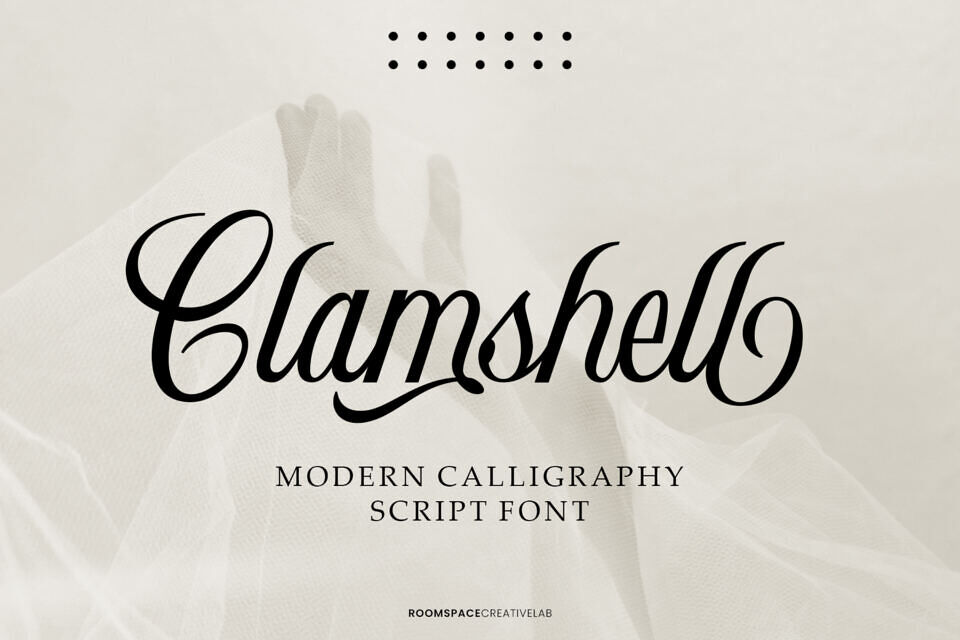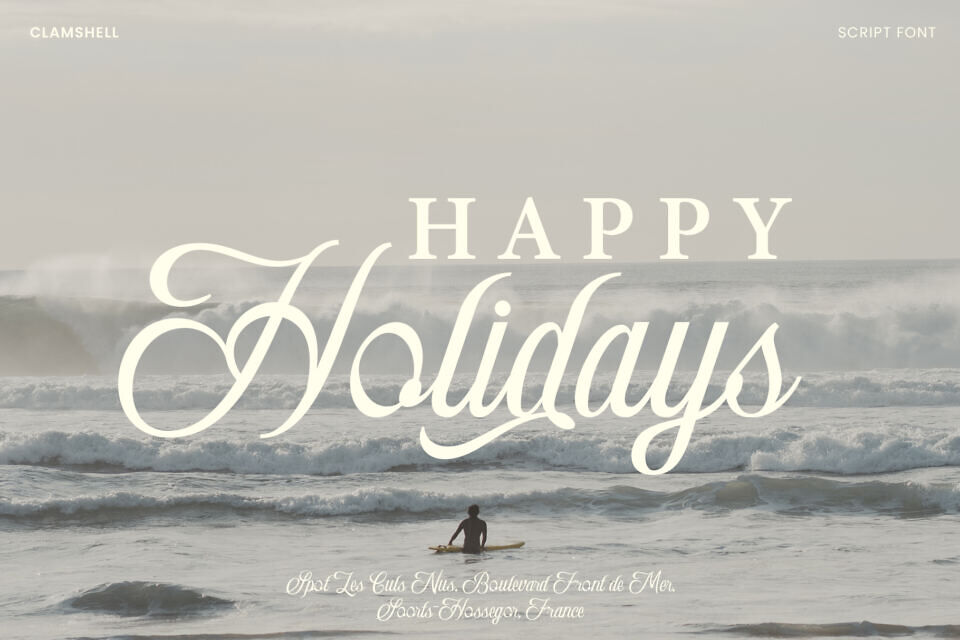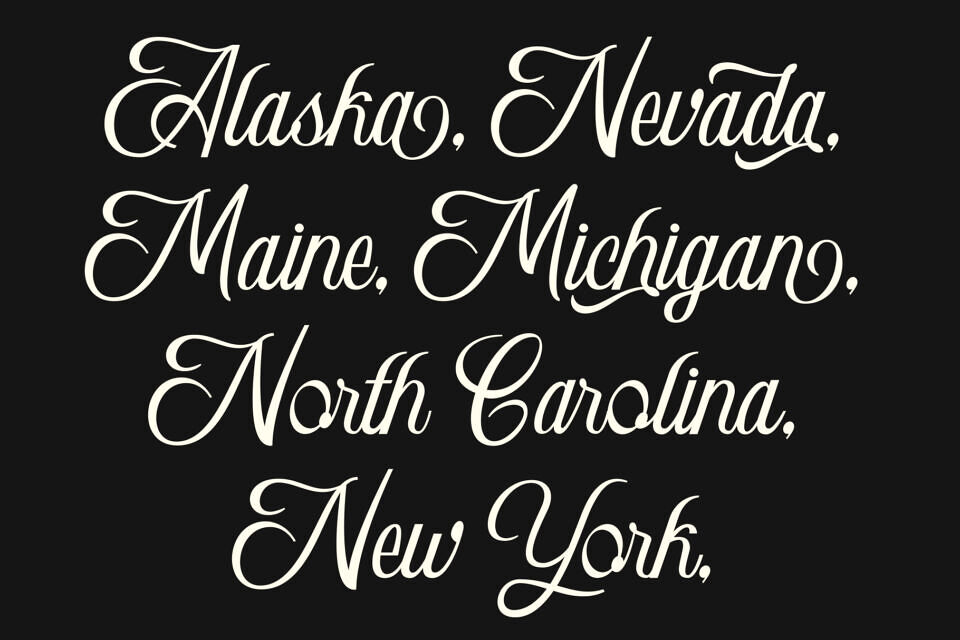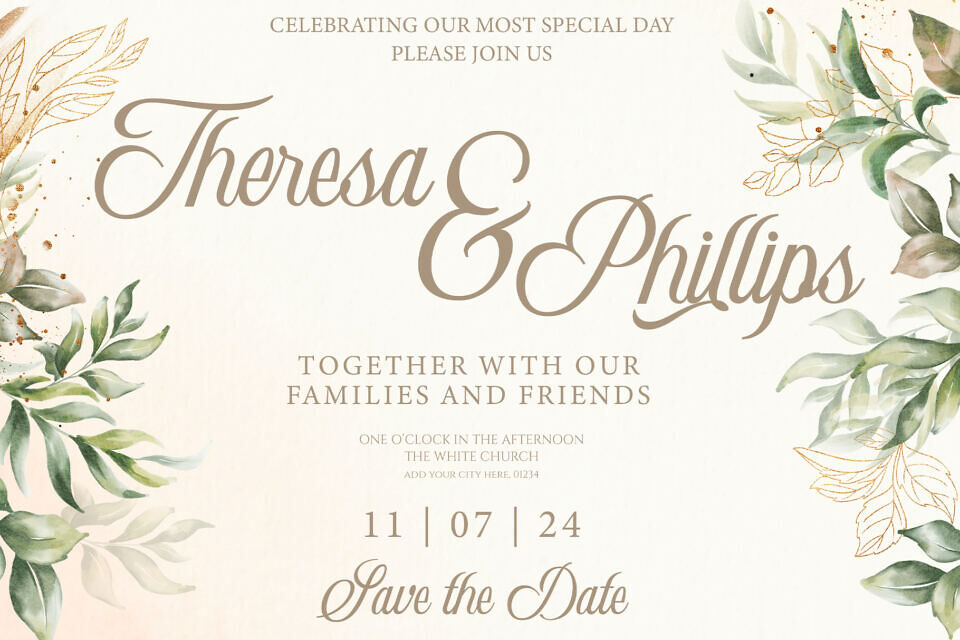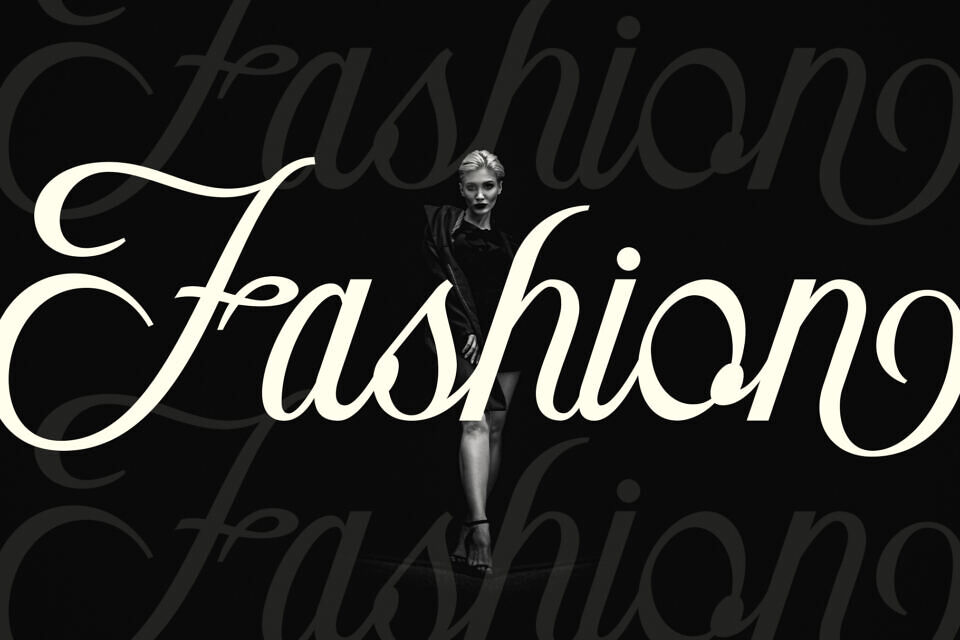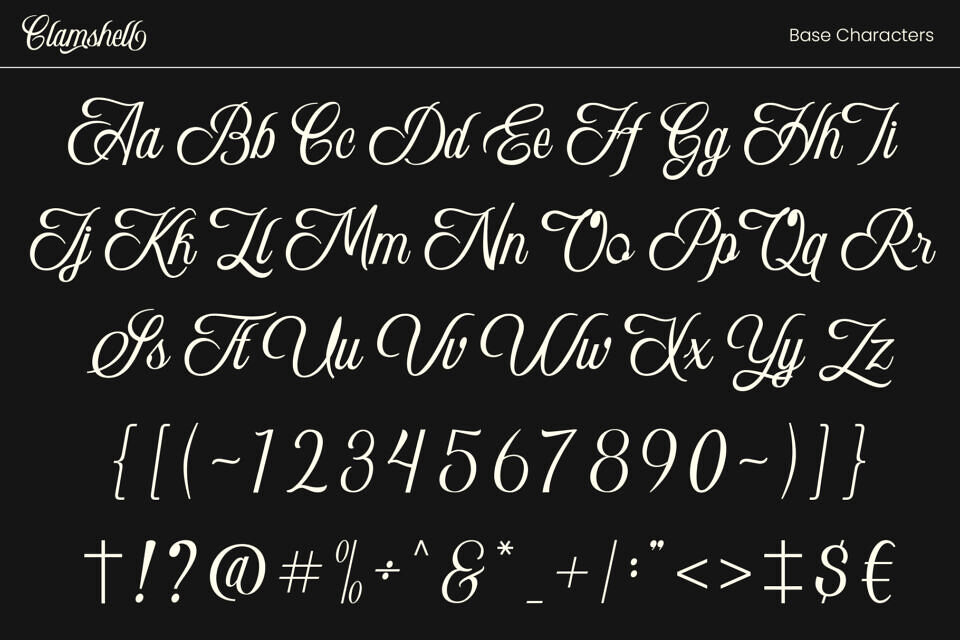
Clamshell Font
Clamshell is a modern calligraphy script font that captures the essence of timeless beauty and sophistication. Its elegant curves and smooth strokes make it the perfect choice for designers seeking a refined, graceful, and stylish typeface. Inspired by handwritten calligraphy, Clamshell delivers a luxurious aesthetic while maintaining a warm, personal touch.
Clamshell is perfect for wedding invitations, branding, packaging, editorial design, and social media, Clamshell adds a touch of charm and professionalism to any creative work. Whether you’re designing a logo, greeting card, or boutique label, this font elevates every detail with elegance and personality.